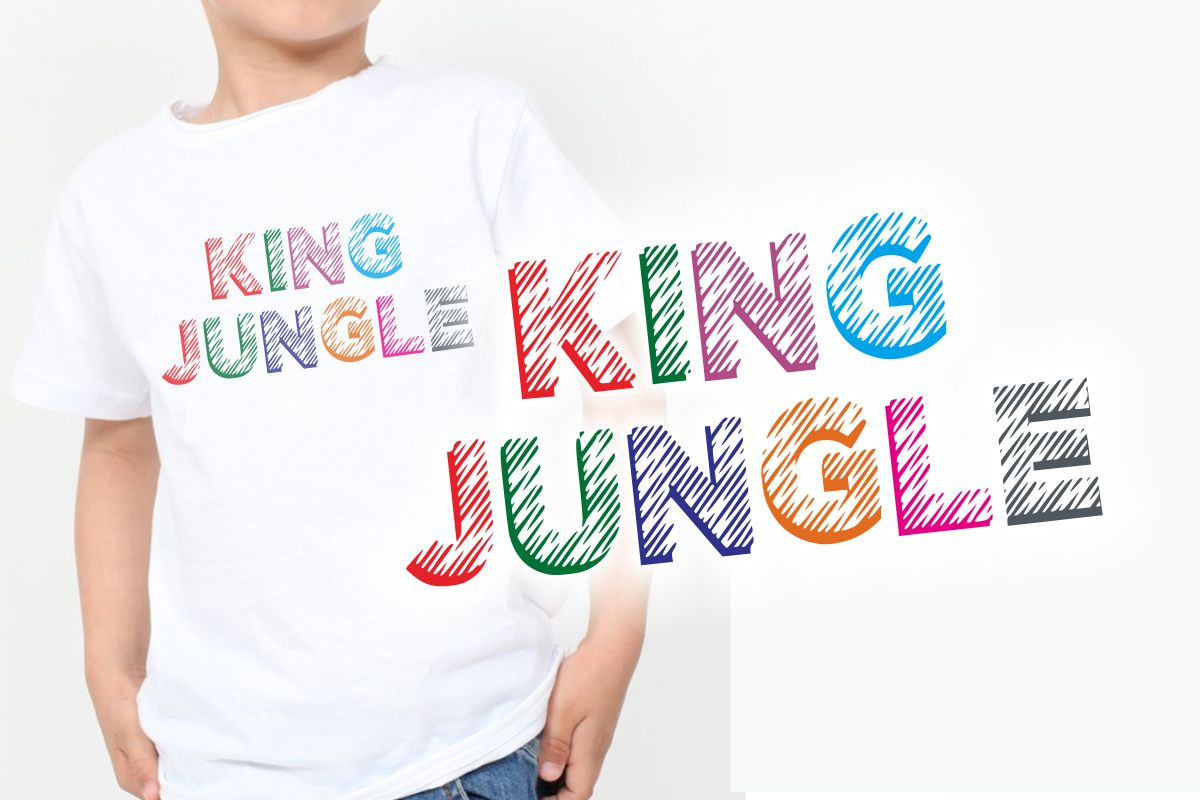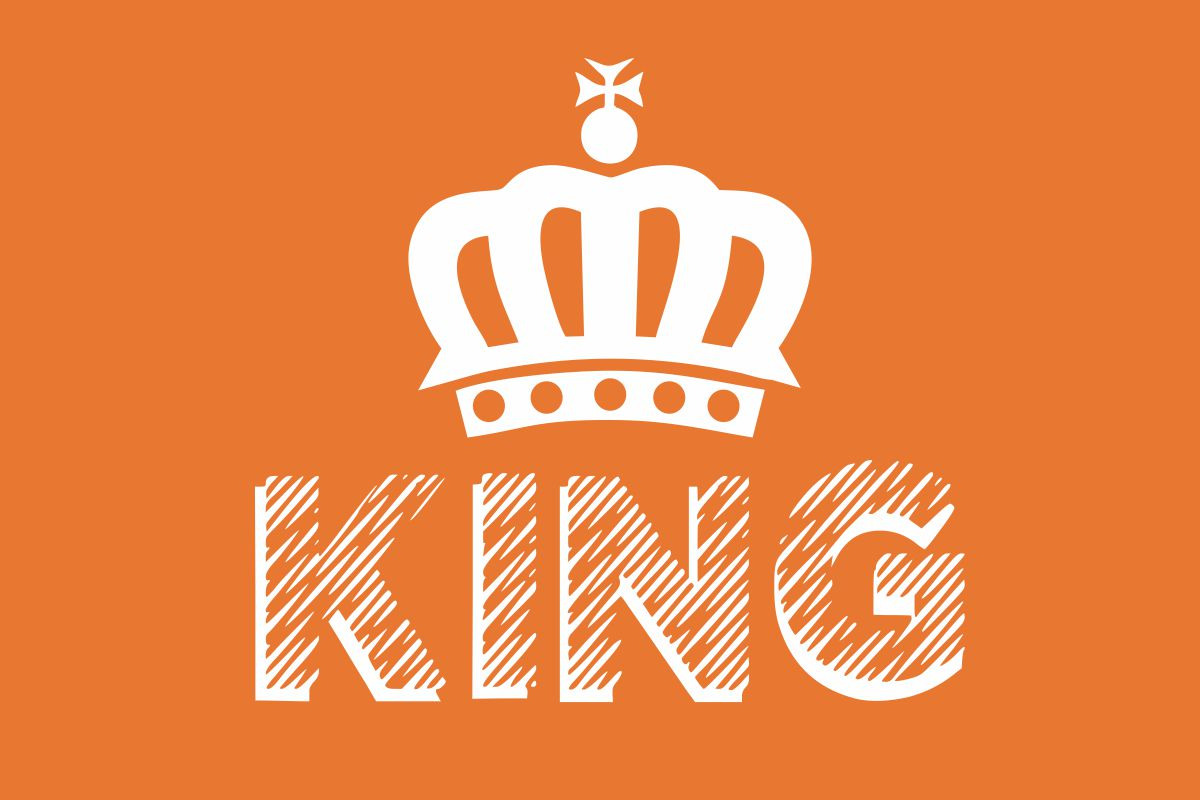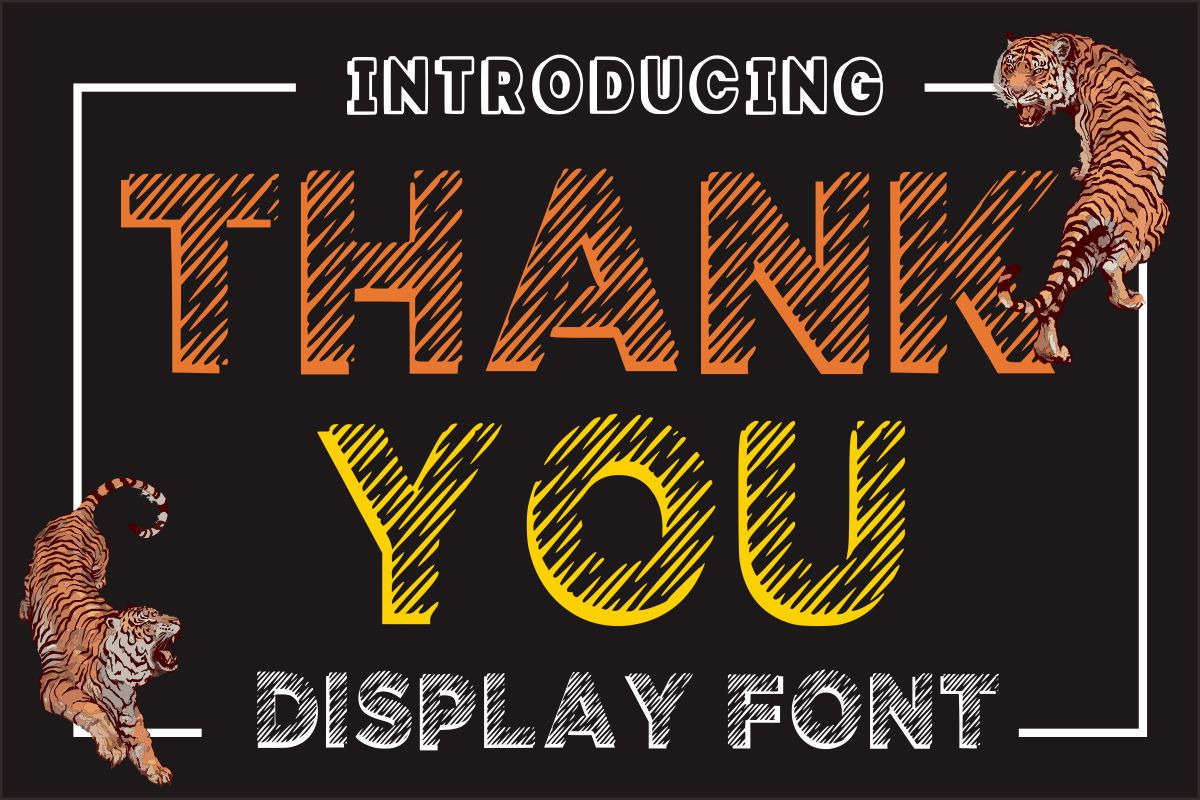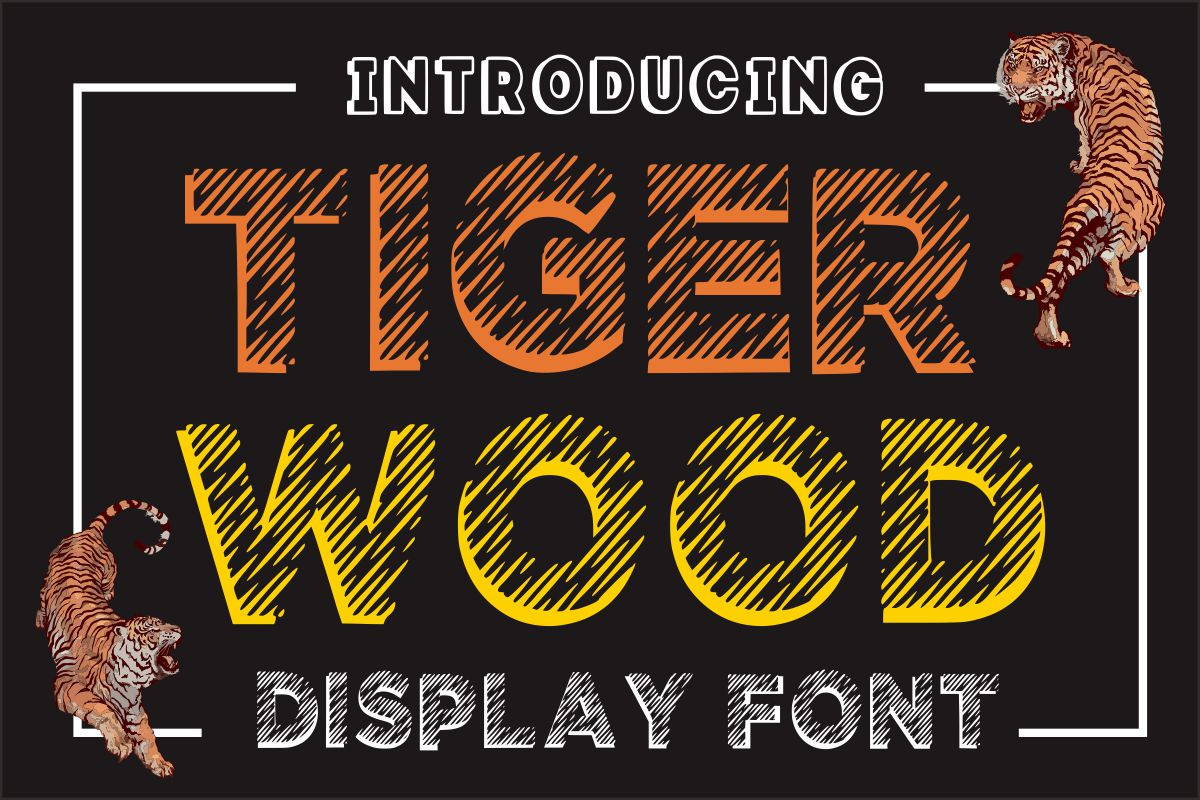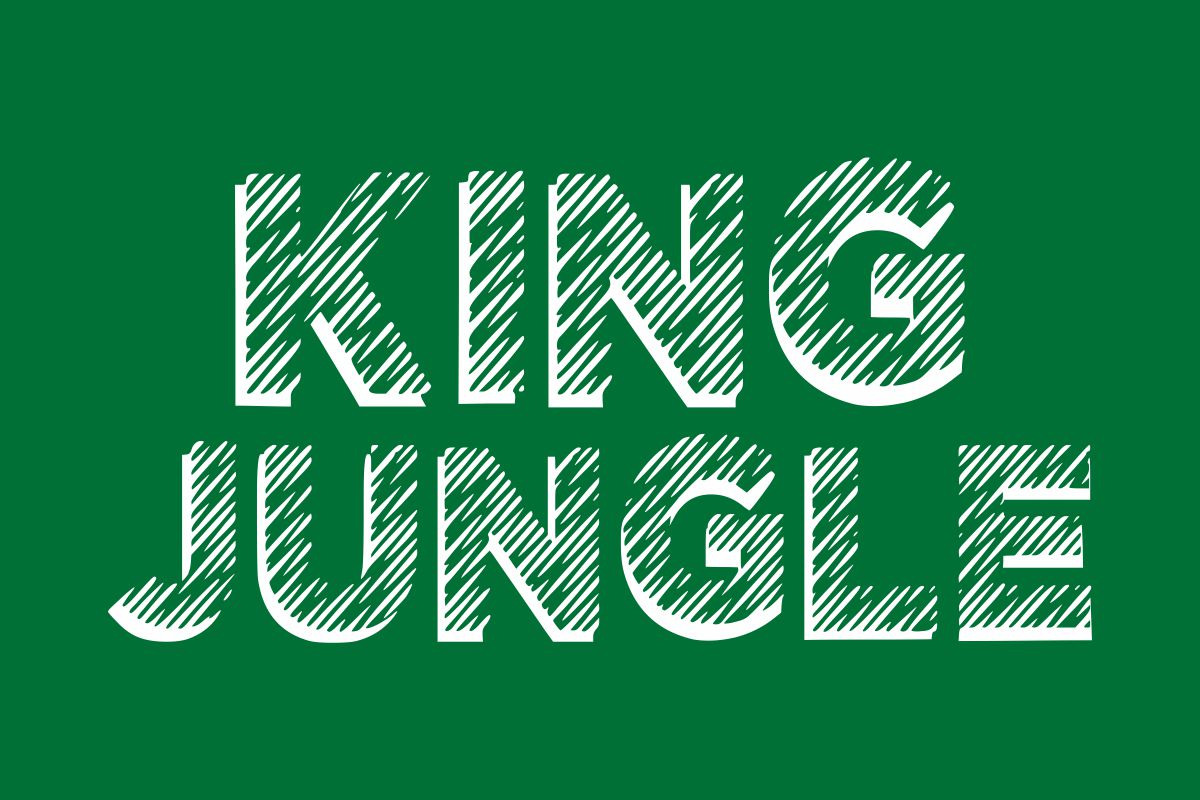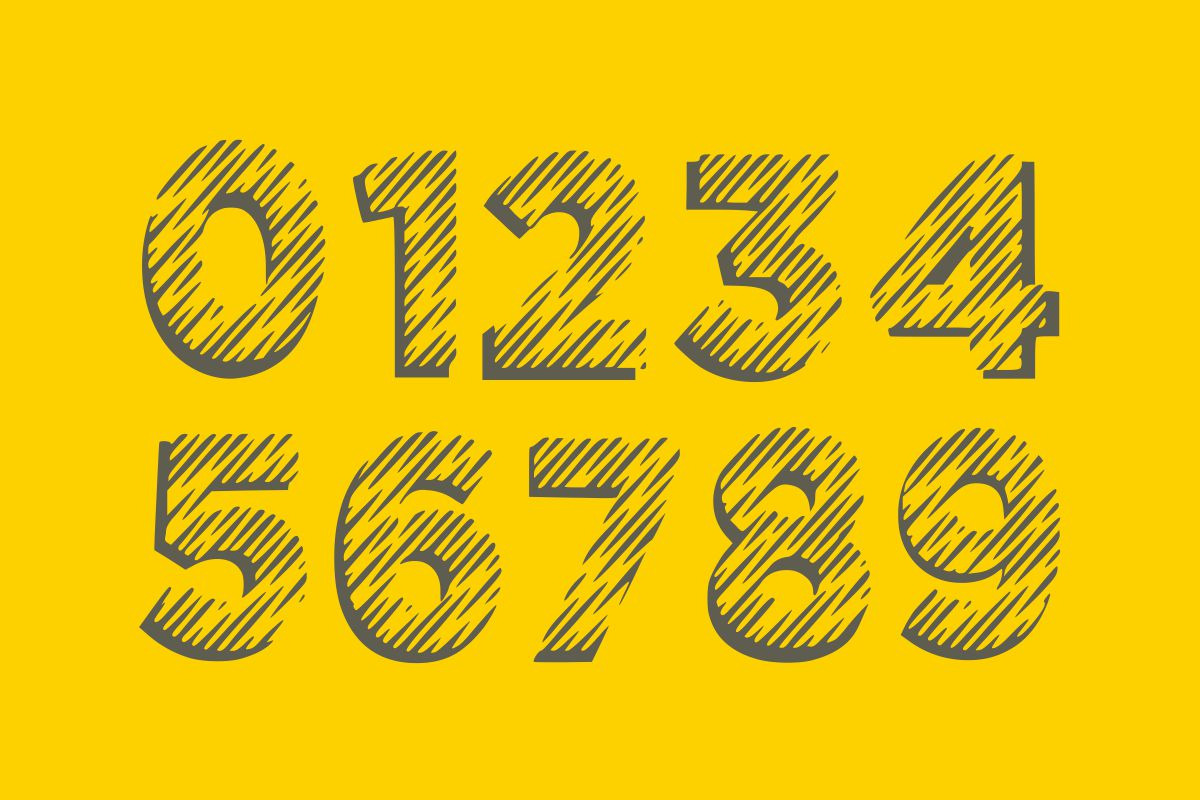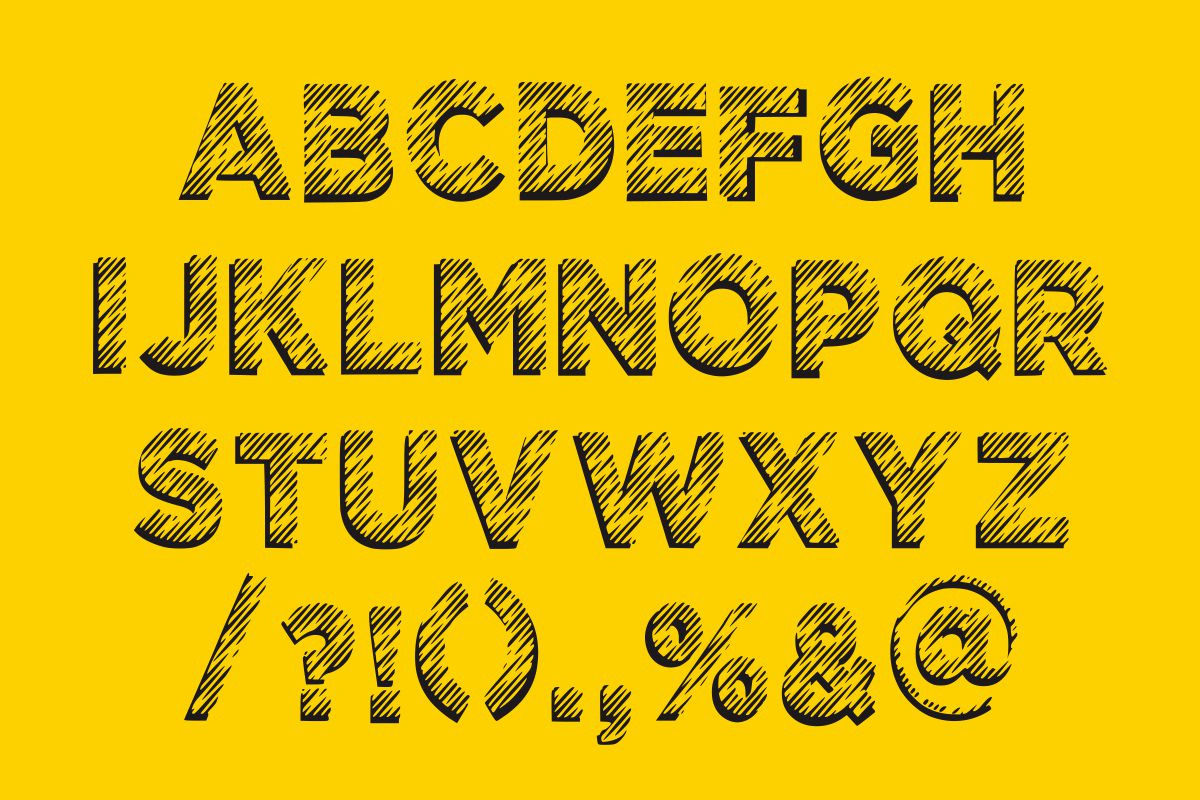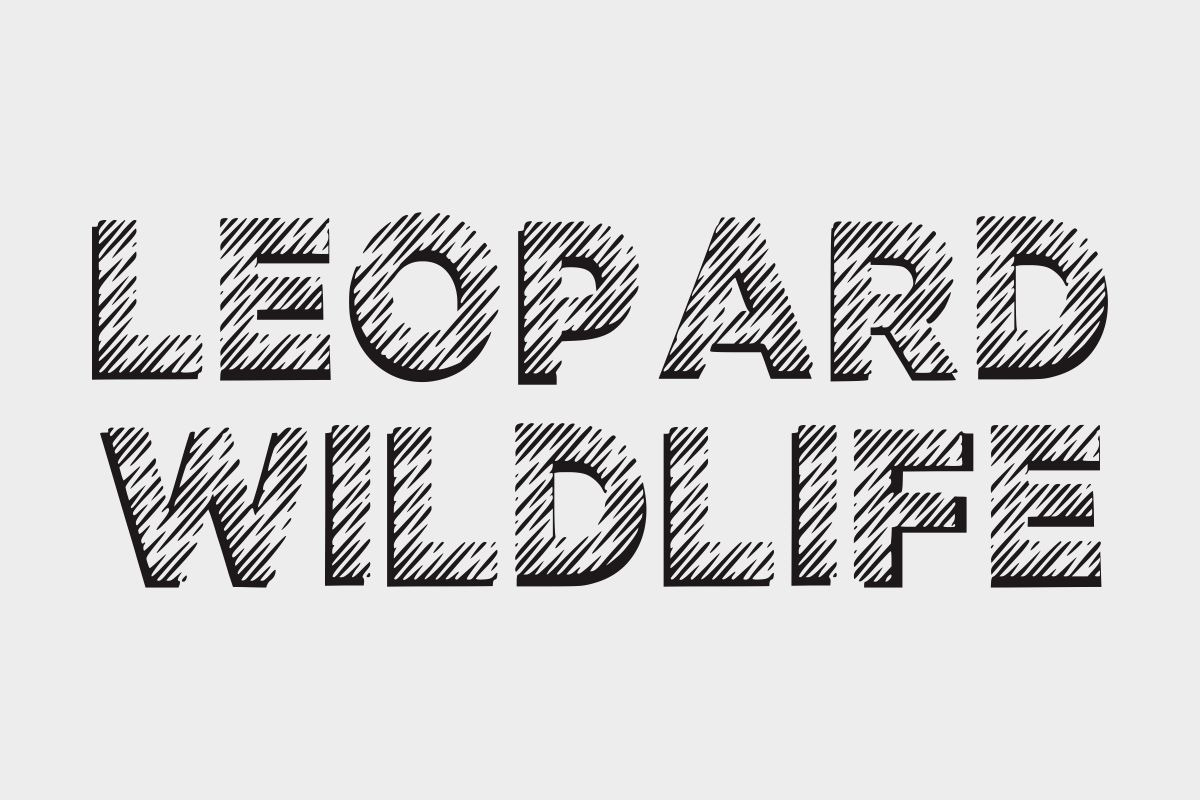
Tiger Wood
Tiger Wood is a cool, original and easy-to-read display font. Whether you’re using it for crafts, digital designs, presentations, or making greeting cards, this font has the potential to become your favorite go-to font, no matter the occasion!